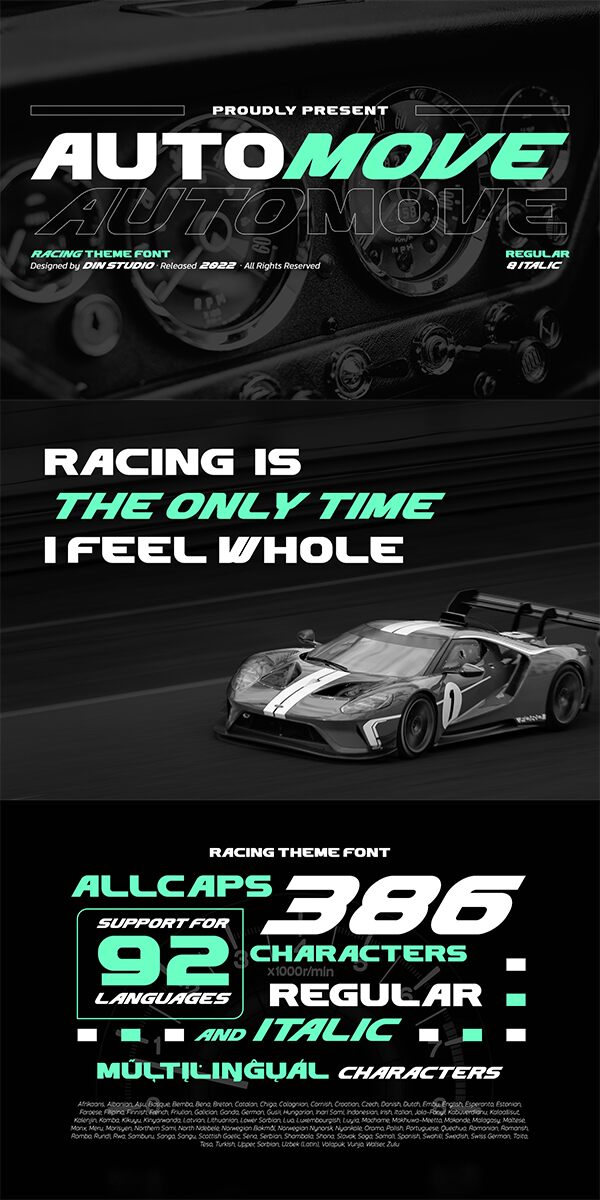
Automove, by Din Studio, is a bold techno display font that accelerates any creative project with its dynamic and modern aesthetic. With a design inspired by the high-speed world of racing, this typeface is tailored for impact and velocity, making it perfect for titles and headers that demand attention. Its unique characteristics are not only in its form but also in its function; the font's readability at large sizes ensures clarity alongside its visual appeal.
Available in both regular and italic versions, Automove offers versatility to designers looking to inject a sense of energy into branding, poster designs, or any digital platform seeking an edge. Its racing theme capital letters are meticulously crafted to capture the essence of speed and precision. Whether you're working on gaming interfaces or automotive advertising, Automove stands out as a lasting choice amidst a sea of typographies for its distinctive style and shape. Unleash the full potential of your designs with this robust font that promises to drive your message home with undeniable force.
Racing Theme Font